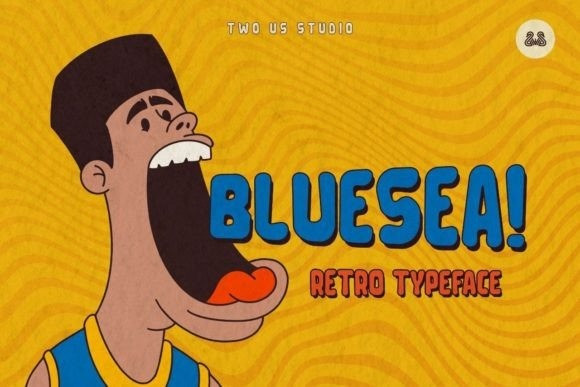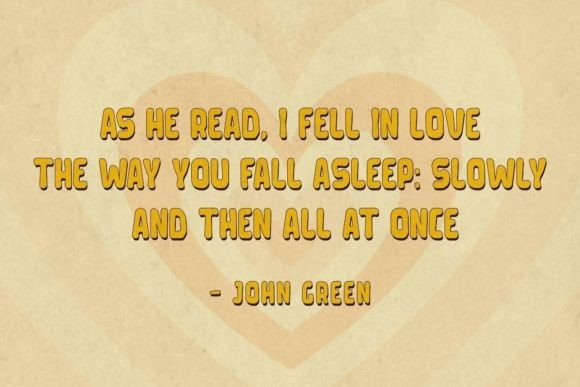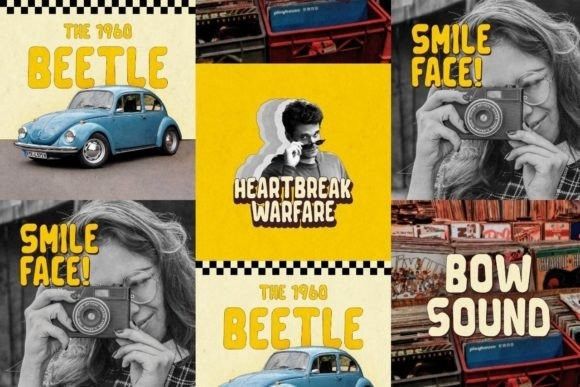
Bluesea Font
Bluesea is a retro and western looking display font. This bold, unique and vintage font can easily become your favorite. It can be used for books, magazine covers, social media posts, invitations, and so much more! So add this to your creations and take your designs to the next level!